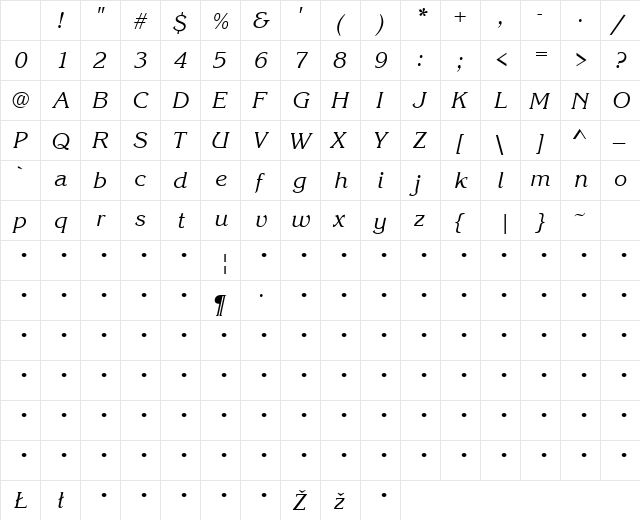
QTKorrin Italic
Design Context for QTKorrin
QTKorrin is a composed and adaptable typeface that performs quietly and consistently across a wide range of design contexts. The slanted form adds forward momentum and visual energy.
Pro Tip: Use QTKorrin for emphasis, pull quotes, and subheadings where its slanted energy can add rhythm to the layout.